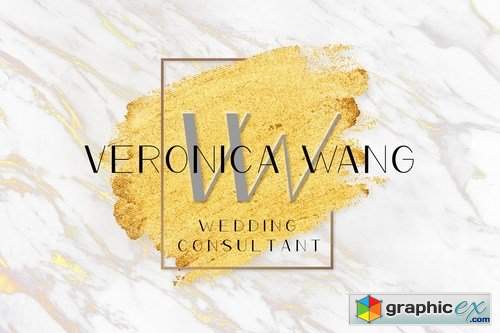
ROSA - Classy Sans Serif
Introducing ROSÀ, the Classy Sans Serif family. It has a clean strokes, well designed that looks gorgeous on your modern style of logos, brands, headlines, templates, all sort of advertising, etc. Choose between the regular or italic version that suits on your special designs and it's all easy to use without special software.